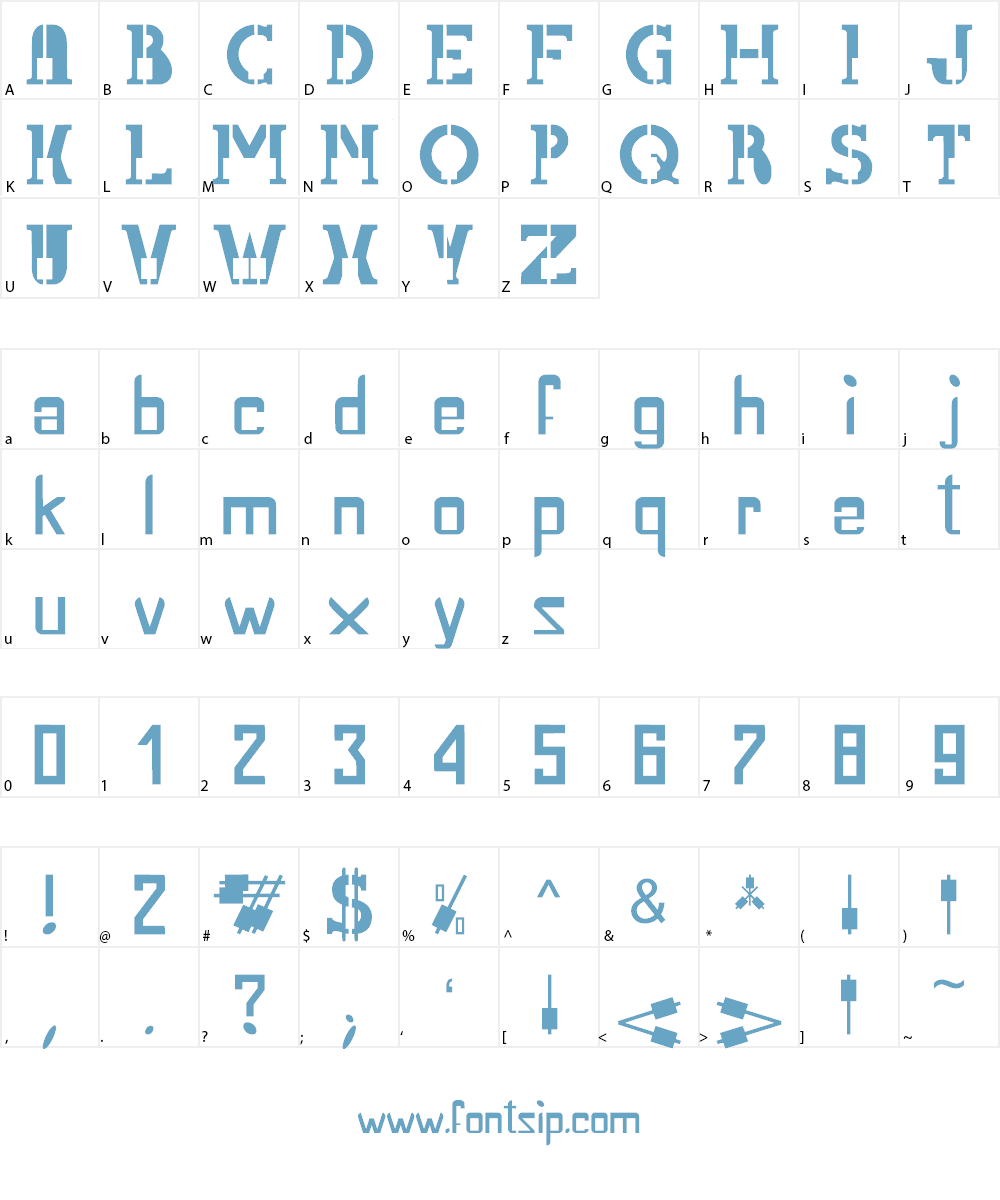
I build and play Cigar Box Guitars since 2011. I organize exhibitions ans festival for free. I record my own songs and share my CDs… all for free… I needed a font for posters and covers… I didn't find the right font to tell the legendary story of the Cigar Box Guitars… I created one "Cigar Box Guitar.ttf" This is the first one, free for personal use and you can send me a message to tell me what you think about it and how you use it. For commercial use, ask me.